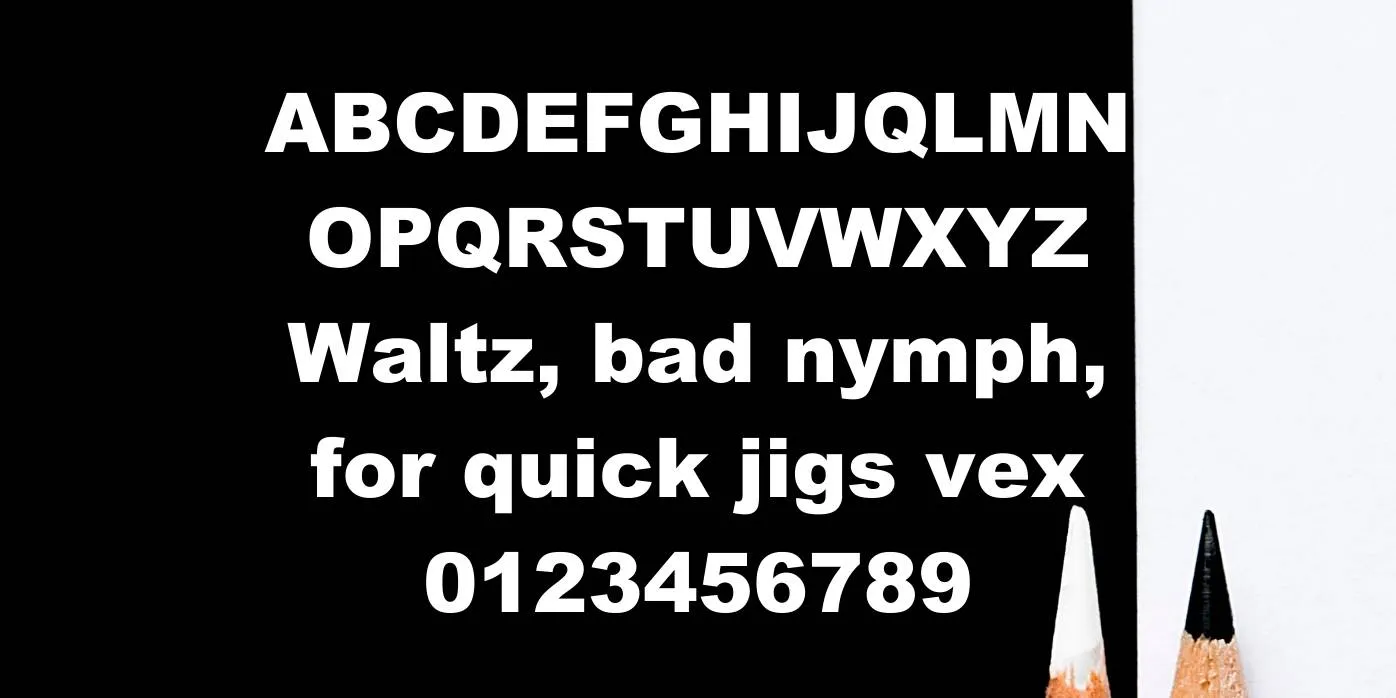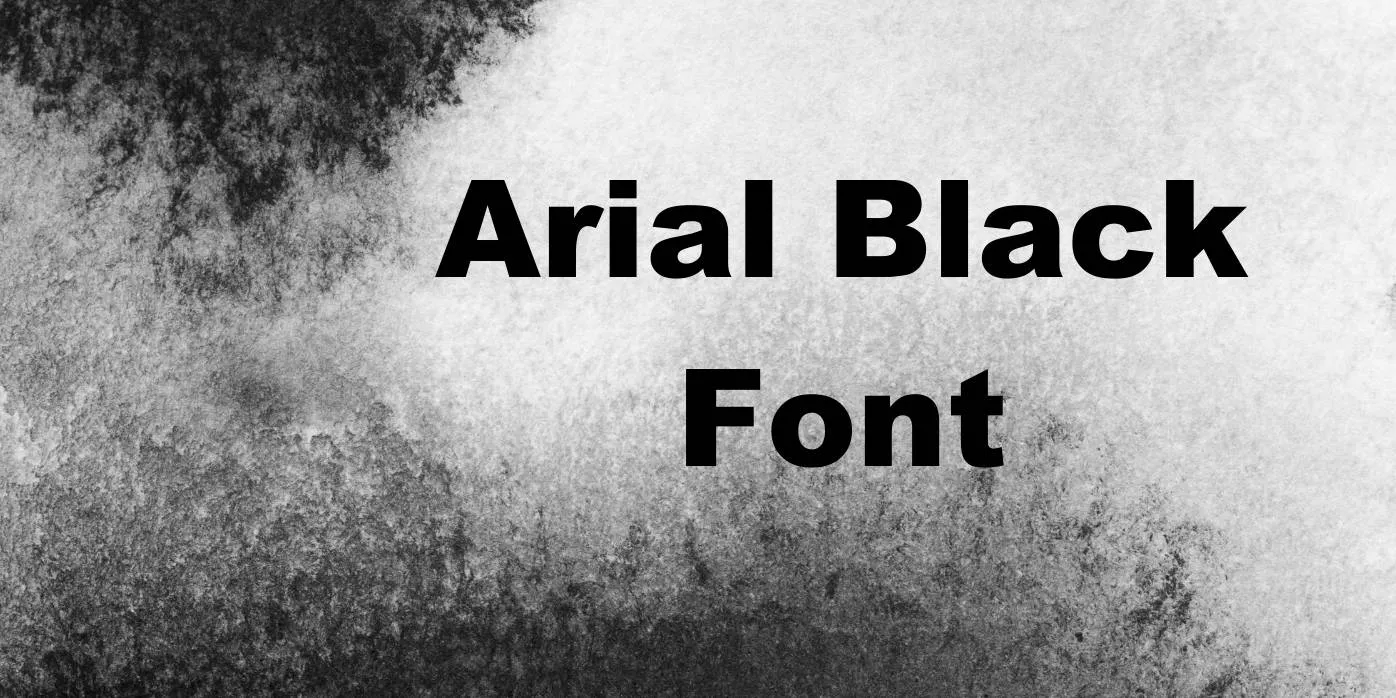
Arial Black Font
Here, we are discussing a marvelous and tremendous font family that was known as Arial Black font. This amazing typeface belongs to the Sans-Serif font family. This awesome font was designed by so much hard work of two excellent designers Robin Nicholas and Patricia Saunders. In the year 1982, this font family was firstly released by the famous Monotype Foundry.
This Bold font is available in different unique styles that make it impressive. This font provides shows the best performance when used with the pairing of arial rounded mt bold font. This font family has extra advanced features that make it different from other fonts. This astonishing font comes in 167 different standard Glyphs and also has above 150 characters.
These characters make it more advanced and popular. It’s some famous characters are Upper and lowercase, numerals, symbols, punctuations, and other more famous and stylish characters. This amazing font is attached with the CSS family also. You can easily download it from various types of private uses.
This typeface has a special feature that is used to convert your designs into a more black look. This is famous with the name of Arial Rounded Font and its popularity is enhanced among various designers. Because of its Black Design, this font is very famous for various displays as well as different advertising purposes.